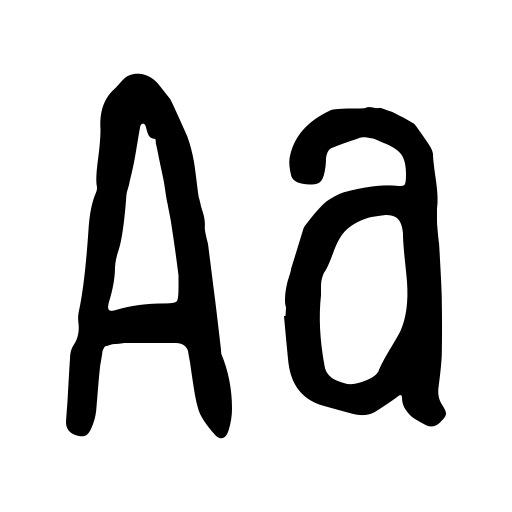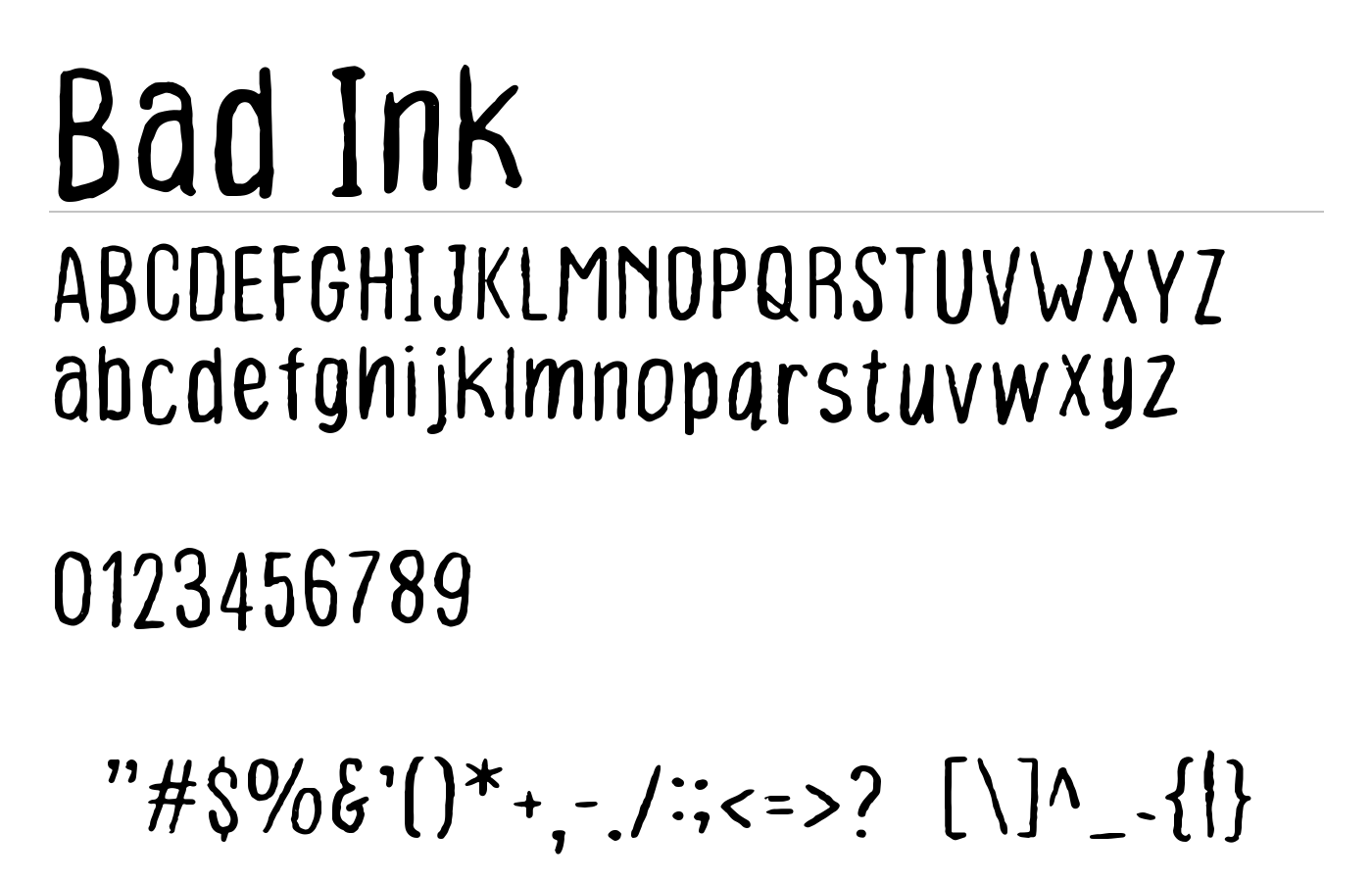
Bad Ink is a quirky, hand-drawn sans serif font with uneven, slightly rough strokes that give it a casual and playful character. Its narrow, tall letterforms and irregular edges evoke the feel of imperfect handwriting or ink that’s bled slightly, making it perfect for creative, informal designs like posters, comics, and playful branding. This font adds personality and a handcrafted touch, ideal for projects that want to feel approachable and fun rather than polished or formal.
Bad Ink Font
About Bad Ink Font